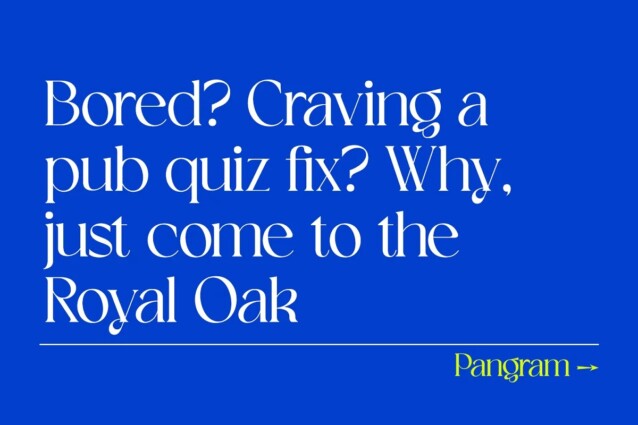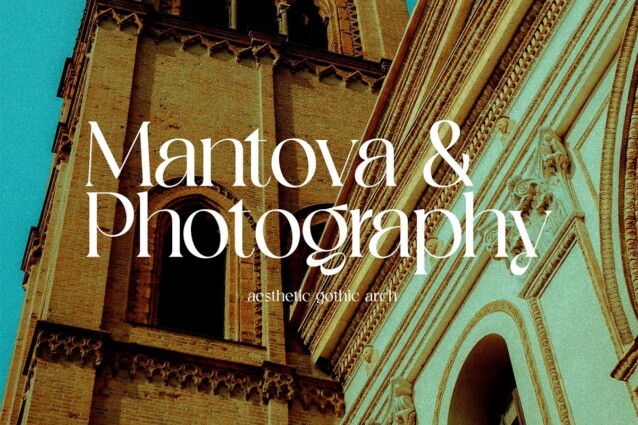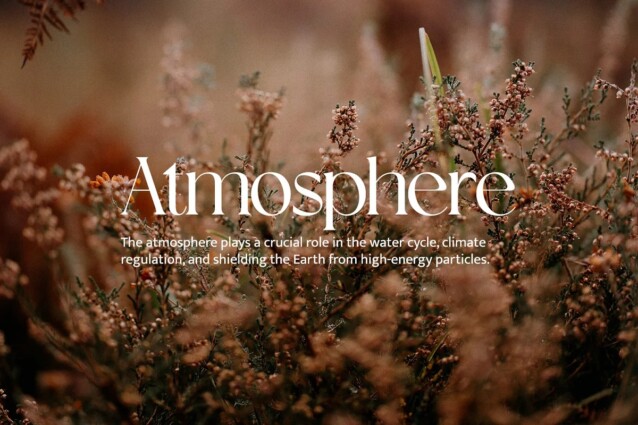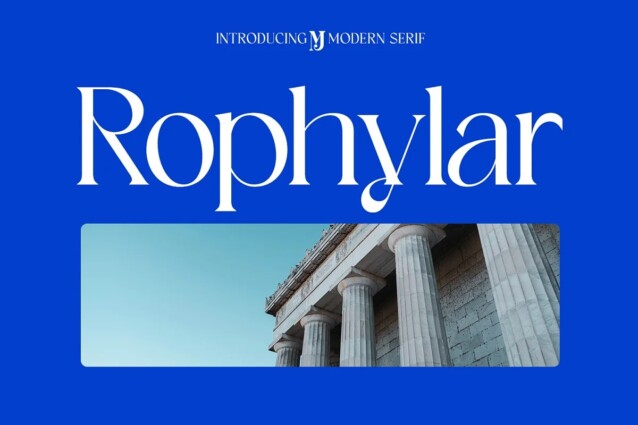
Rophylar Font
Rophylar Font  is a serif font from Mjtype that is elegant and feminine with beautiful ligature. It is a high contrast version. both contemporary and nostalgic and works well for logos, headlines and pull quotes. It matches beautifully with a simple sans serif or light script font.